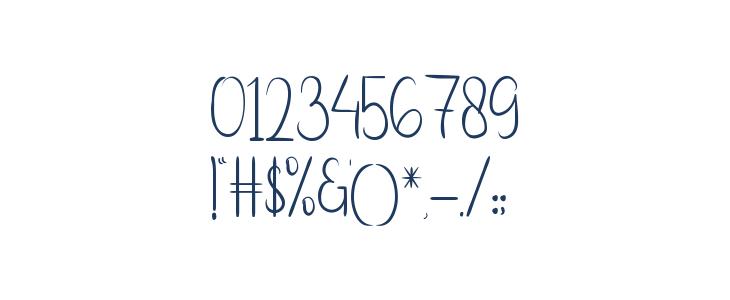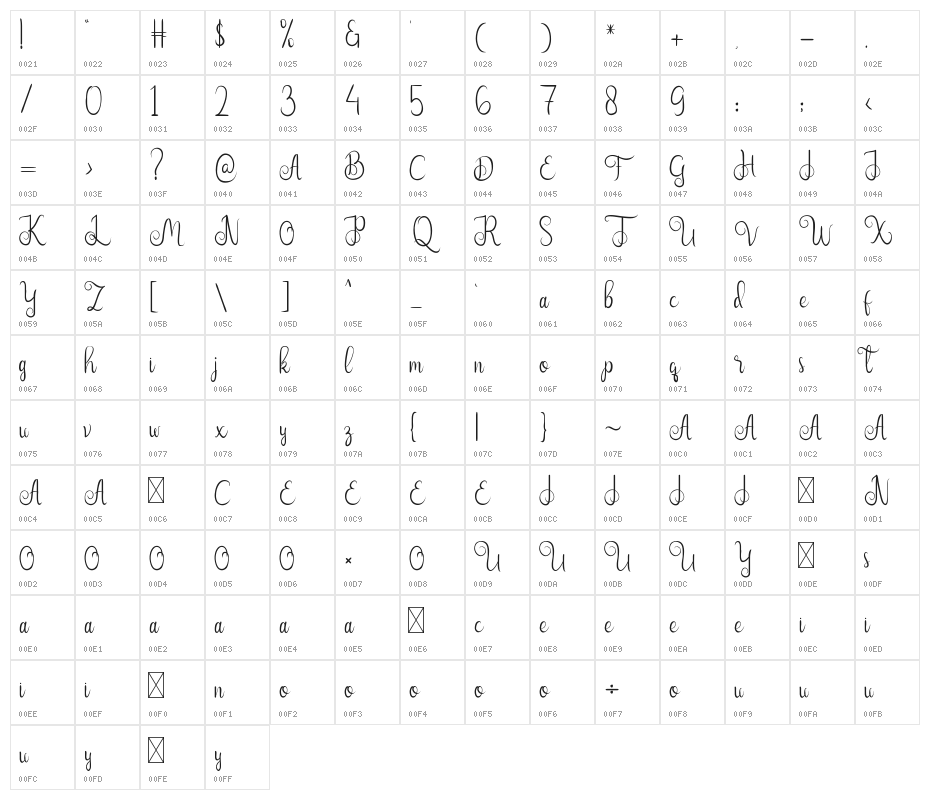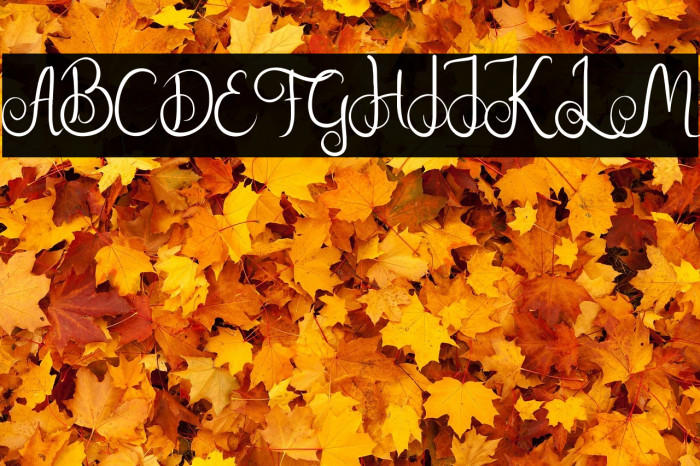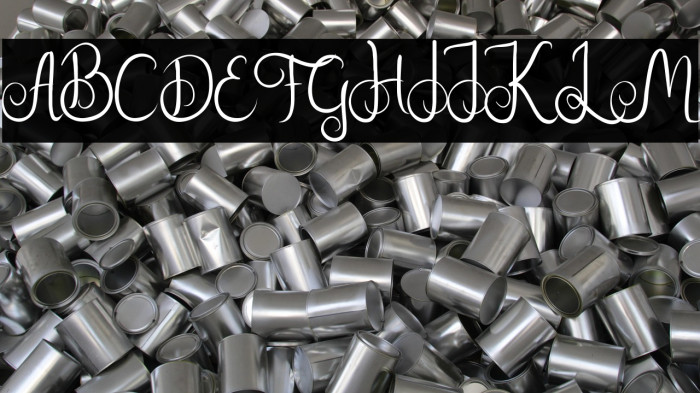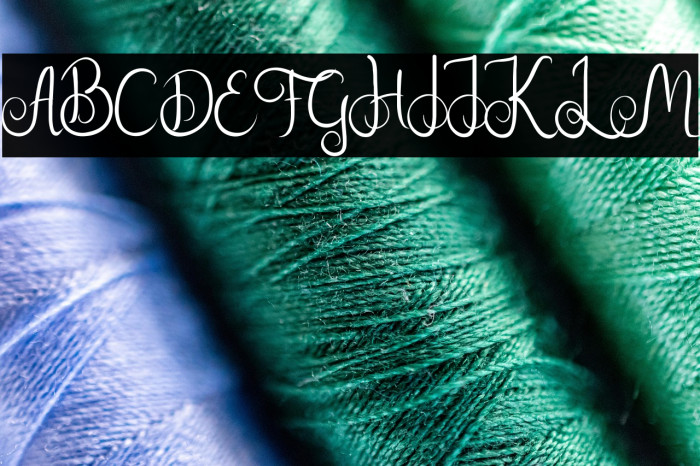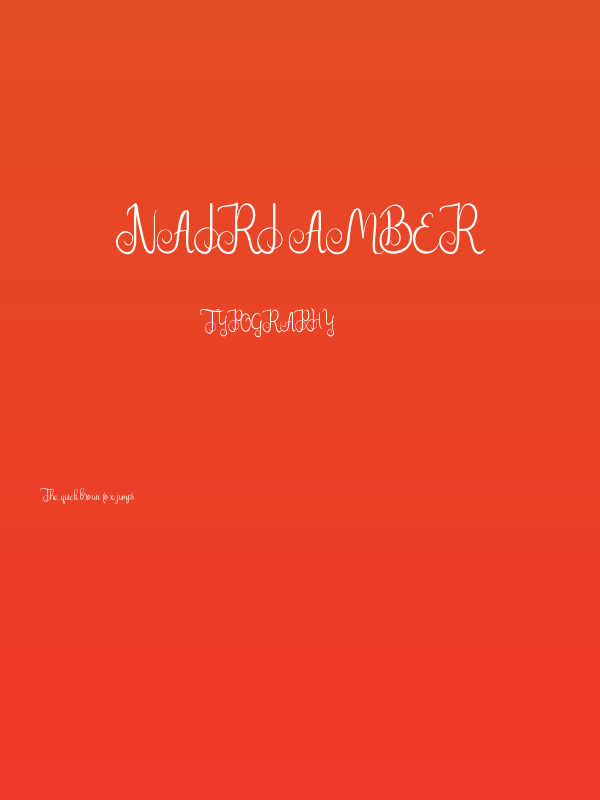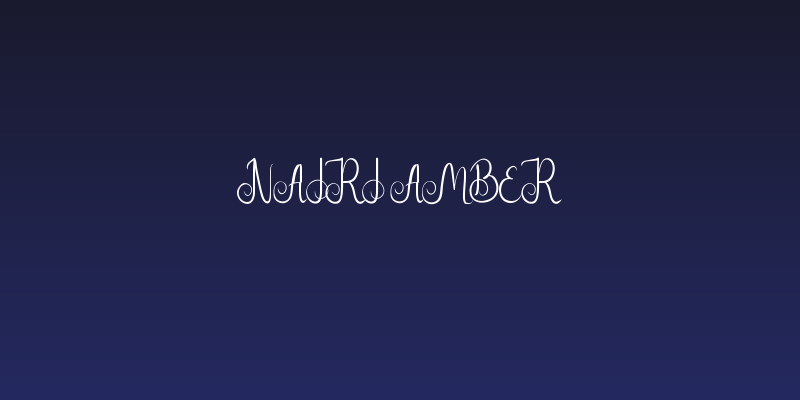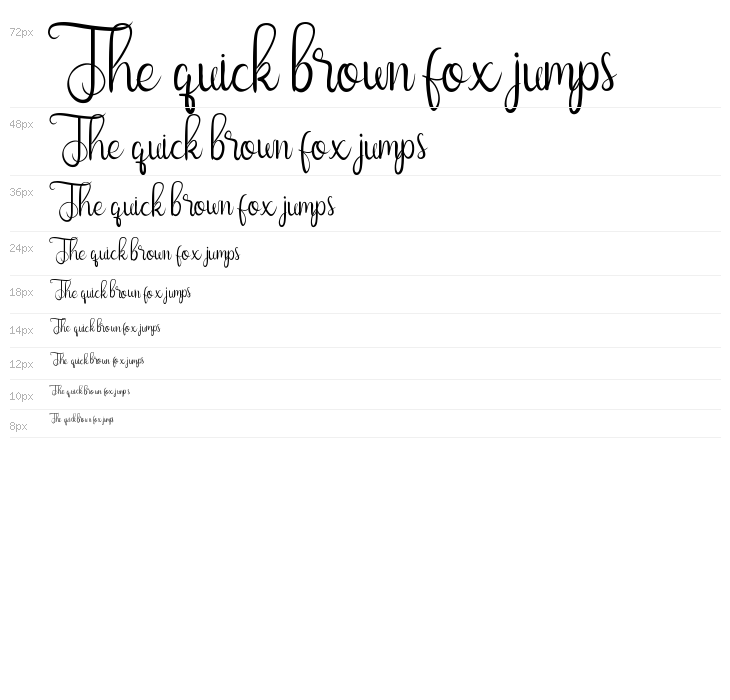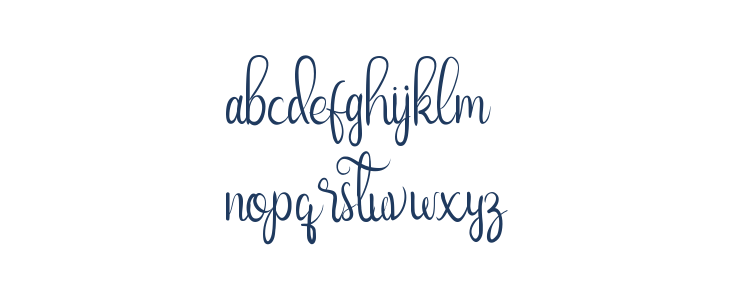
Nairi Amber Font
Nairi Amber Description
This font features an elegant and flowing script style, characterized by its ornate and decorative letterforms. The uppercase letters are particularly elaborate, with intricate loops and swirls that give a sense of sophistication and artistry. The lowercase letters maintain a consistent style, with smooth curves and a slightly playful touch. The numerals are clear and legible, maintaining the decorative theme without compromising readability. Special characters are thoughtfully designed to match the overall aesthetic, making this font suitable for creative and expressive projects.